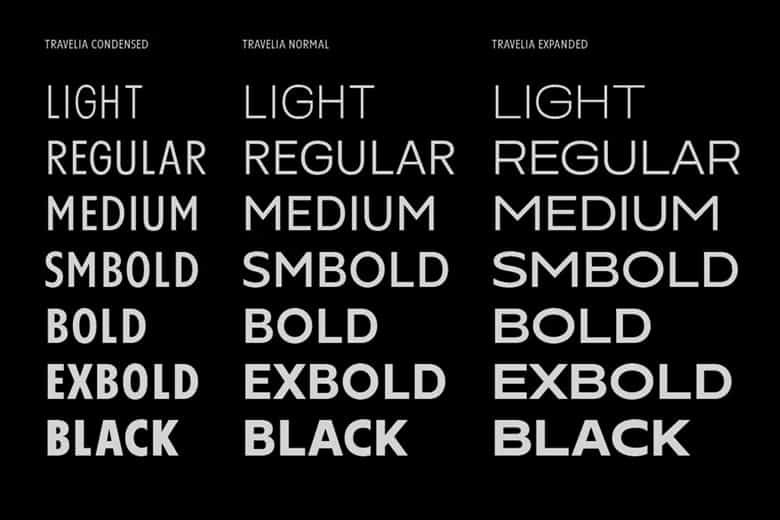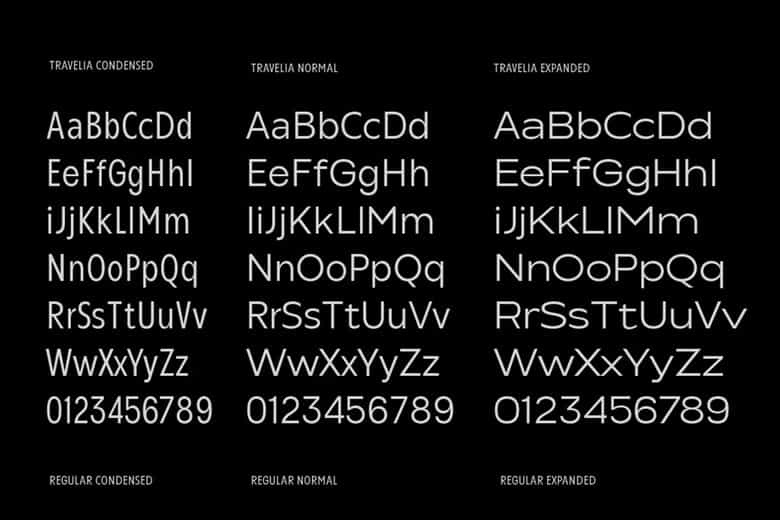
Travelia Font Family is a unique and contemporary grouping and those who prefer minimalistic and looking quality and clear fonts. It has 21 fonts and 3 styles: Condensed, Normal and Expanded, which are designed to meet different design requirements.